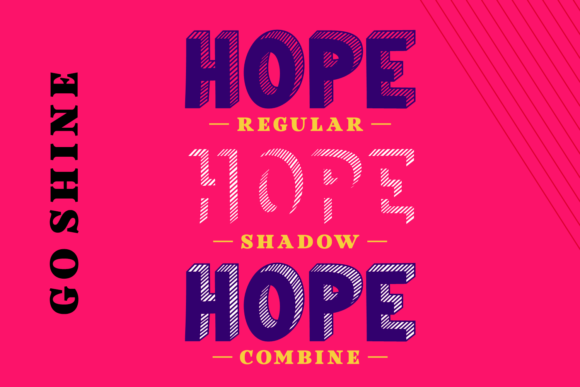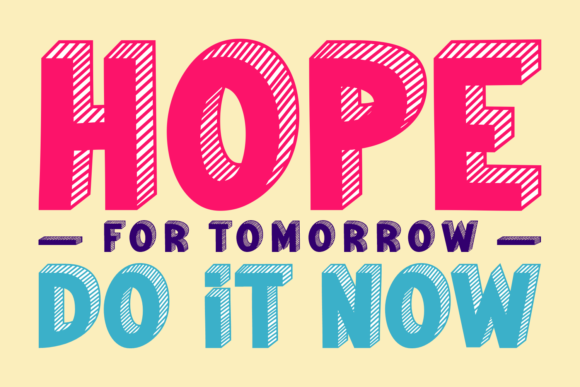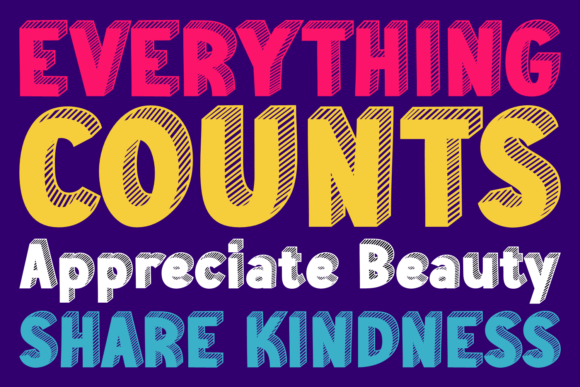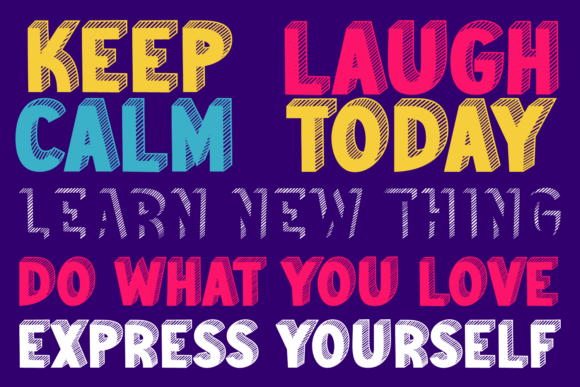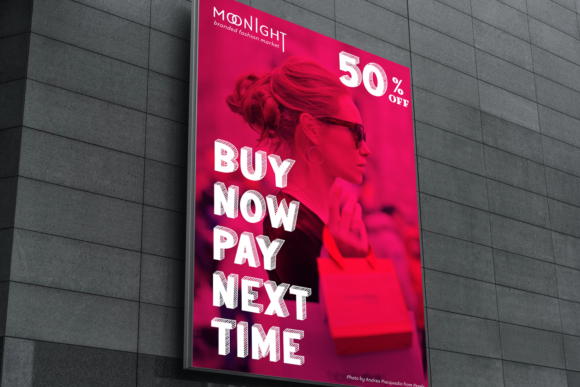
Introducing Go Shine Font: Elevate Your Designs with Bold and Colorful Flair
Are you on the hunt for a display font that can take your creative projects to new heights? Look no further than Go Shine Font! This bold and colorful typeface is masterfully designed to become a true favorite among designers and crafters alike. With its unique charm and versatility, Go Shine Font has the potential to bring each of your creative ideas to the highest level.
What Makes Go Shine Font Stand Out?
Go Shine Font is not just another font – it’s an experience. Its bold and colorful design makes it perfect for a wide range of applications, from branding and advertising to packaging and social media graphics. The font’s unique style is sure to grab attention and leave a lasting impression on your audience.
One of the key features that sets Go Shine Font apart is its exceptional legibility. Even at smaller sizes, the font remains clear and easy to read, making it perfect for use in a variety of contexts. Additionally, the font’s versatility means it can be used for both personal and commercial projects, giving you the freedom to experiment and explore different creative avenues.
Key Features of Go Shine Font
- Bold and Colorful Design: Go Shine Font features a bold and colorful design that’s sure to grab attention.
- Exceptional Legibility: The font remains clear and easy to read, even at smaller sizes.
- Wide Range of Applications: Perfect for branding, advertising, packaging, social media graphics, and more.
How to Use Go Shine Font in Your Designs
Using Go Shine Font in your designs is easy! Here are a few tips to get you started:
- Pair it with a Neutral Font: Pair Go Shine Font with a neutral font to create a striking contrast.
- Experiment with Colors: Try out different colors and gradients to give your design a unique look.
- Use it for Headings: Use Go Shine Font for headings and titles to add a pop of personality to your design.
Why Designers and Crafters Love Go Shine Font
Designers and crafters love Go Shine Font for its unique blend of style and versatility. Here are a few reasons why:
- High-Quality Design: The font features a high-quality design that’s perfect for professional-grade projects.
In conclusion, Go Shine Font is a bold and colorful display font that’s perfect for designers and crafters looking to elevate their creative projects. With its exceptional legibility, versatility, and wide range of applications, Go Shine Font has the potential to bring each of your creative ideas to the highest level. So why wait? Try Go Shine Font today and experience the power of bold and colorful typography!